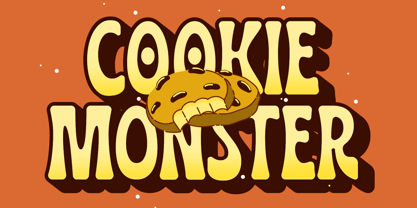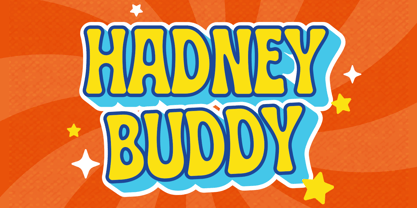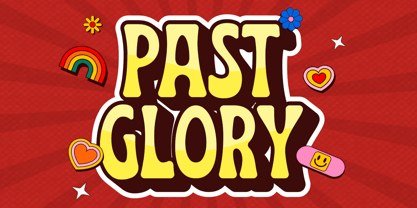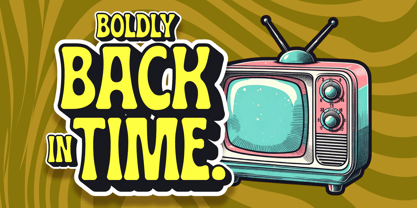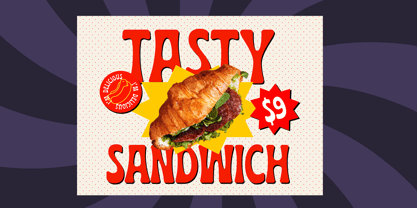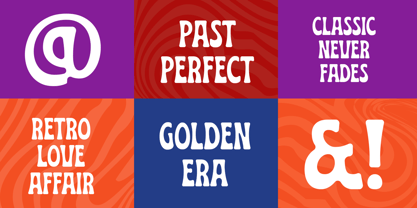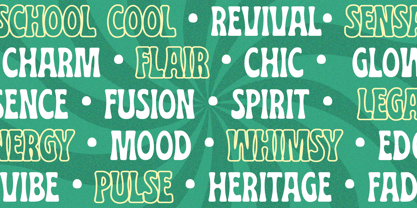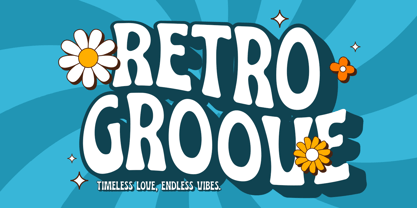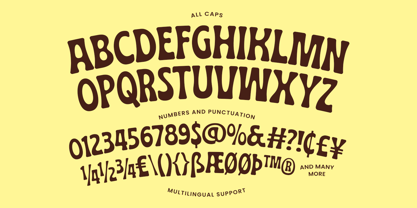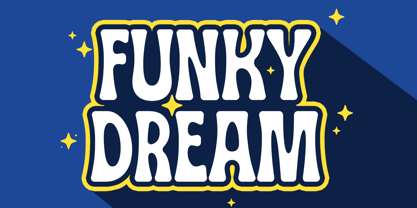
Hadney Buddy
by Arterfak Project
The Hadney Buddy Font Family was designed by Ahmad Ramzi Fahruddin and published by Arterfak Project. Hadney Buddy contains 4 styles and family package options.
Unleash a wave of nostalgia into your designs with Hadney Buddy, the ultimate retro display font! This versatile layered typeface consists of regular, Extrude, Outline, and Outerline styles, allowing you to craft dynamic, funky, and super eye-catching typography effortlessly.
With its bold, curvy, and playful design, Hadney Buddy brings a perfect blend of elegance and cheer to logos, posters, apparel, motion graphics, stickers, branding, and more. Release the charm of the good old days with Hadney Buddy which makes every design unforgettable!
- All capitals characters
- Numbers & Symbols
- Punctuation
- Multilingual support
- Stylistic alternates